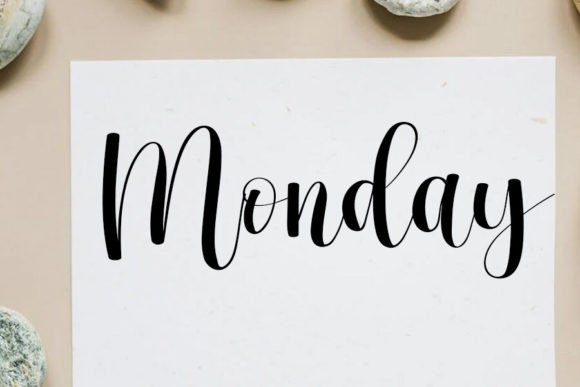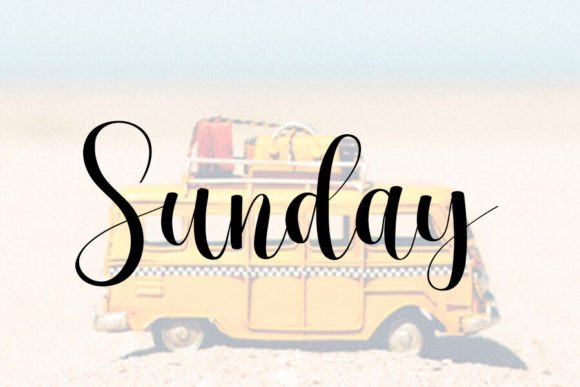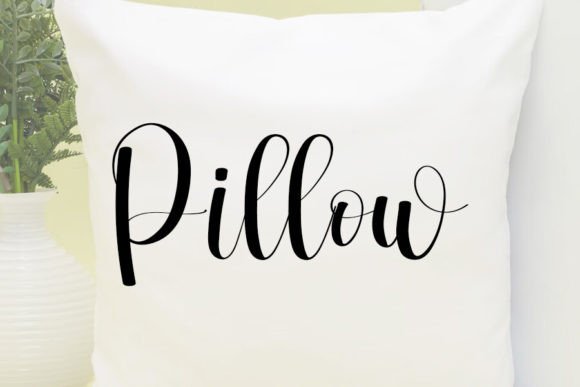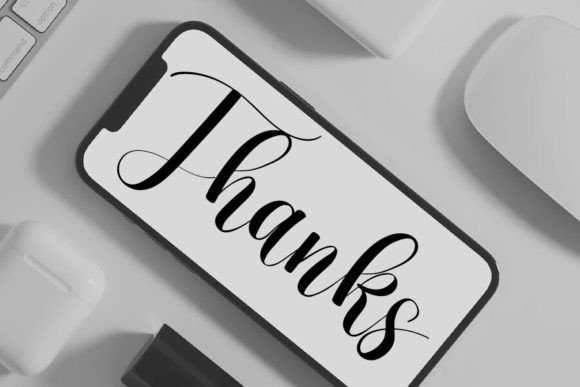
The Art of Creativity: Bringing Your Vision to Life with Actual Font
Have you ever stared at a blank canvas, eager to bring your artistic vision to life, only to be held back by the perfect font? We’ve all been there. The struggle is real, but what if I told you that there’s a magical script font that can make your creative dreams a reality? Introducing Actual Font, a carefully crafted font that combines elegance and sophistication to elevate any design project.
As a designer, you know the importance of choosing the right font to convey your message and evoke the desired emotions. Actual Font is more than just a font – it’s a tool that can transform your ideas into stunning works of art. Whether you’re creating social media graphics, designing wedding invitations, or crafting DIY projects, this versatile font will help you achieve the perfect look and feel.
Actual Font Key Features
- Unique Character Sets: Actual Font fonts come with unique character sets, including symbols, icons, and special characters, adding an extra layer of creativity and expression to your designs.
- High-Quality Typography: Actual Font fonts are designed to provide high-quality typography, with precise letterforms, accurate spacing, and excellent readability, ensuring that your text stands out in any medium.
- Scalability and Versatility: Actual Font fonts are designed to be scalable and versatile, allowing them to adapt seamlessly to various design contexts, from print to digital media, and from small to large sizes.
Designer Review: Actual Font
As a designer, I was excited to try out Actual Font, a font that promises to deliver a unique and authentic feel. And I’m happy to say that it delivers ✨. The font has a certain charm and character that sets it apart from more generic fonts. It’s perfect for projects that need a touch of personality and whimsy.
The font’s versatility is also a major plus ✨. It works well for a variety of applications, from headings and titles to body text and even logos. And with a wide range of weights and styles to choose from, you’re sure to find the perfect fit for your project.
While Actual Font is a great addition to any designer’s toolkit, it’s not without its limitations ⚠️. The font can be a bit difficult to read at smaller sizes, and the irregularities in the letterforms can make it challenging to use for long blocks of text. Additionally, the font’s unique style may not be to everyone’s taste.
Overall, I’m a big fan of Actual Font ✨. It’s a unique and versatile font that’s perfect for adding some personality to your projects. While it may not be the best choice for every project, it’s definitely worth considering for those that need a touch of whimsy and charm.
Key Features
- Unique and authentic feel
- Perfect for projects that need a touch of personality and whimsy
- Wide range of weights and styles to choose from
- Difficult to read at smaller sizes
- Irregularities in the letterforms can make it challenging to use for long blocks of text
Getting the Most Out of Actual Font
Actual Font is a versatile font that can be used in various design projects. To get the most out of it, use it in combination with other design elements, such as images and graphics, to create visually appealing designs. Experiment with different font sizes, colors, and styles to find the perfect combination for your project.
Actual Font is commonly used in:
- Business presentations and reports
- Marketing materials, such as brochures and flyers
- Website and app design
- Editorial content, such as articles and blogs